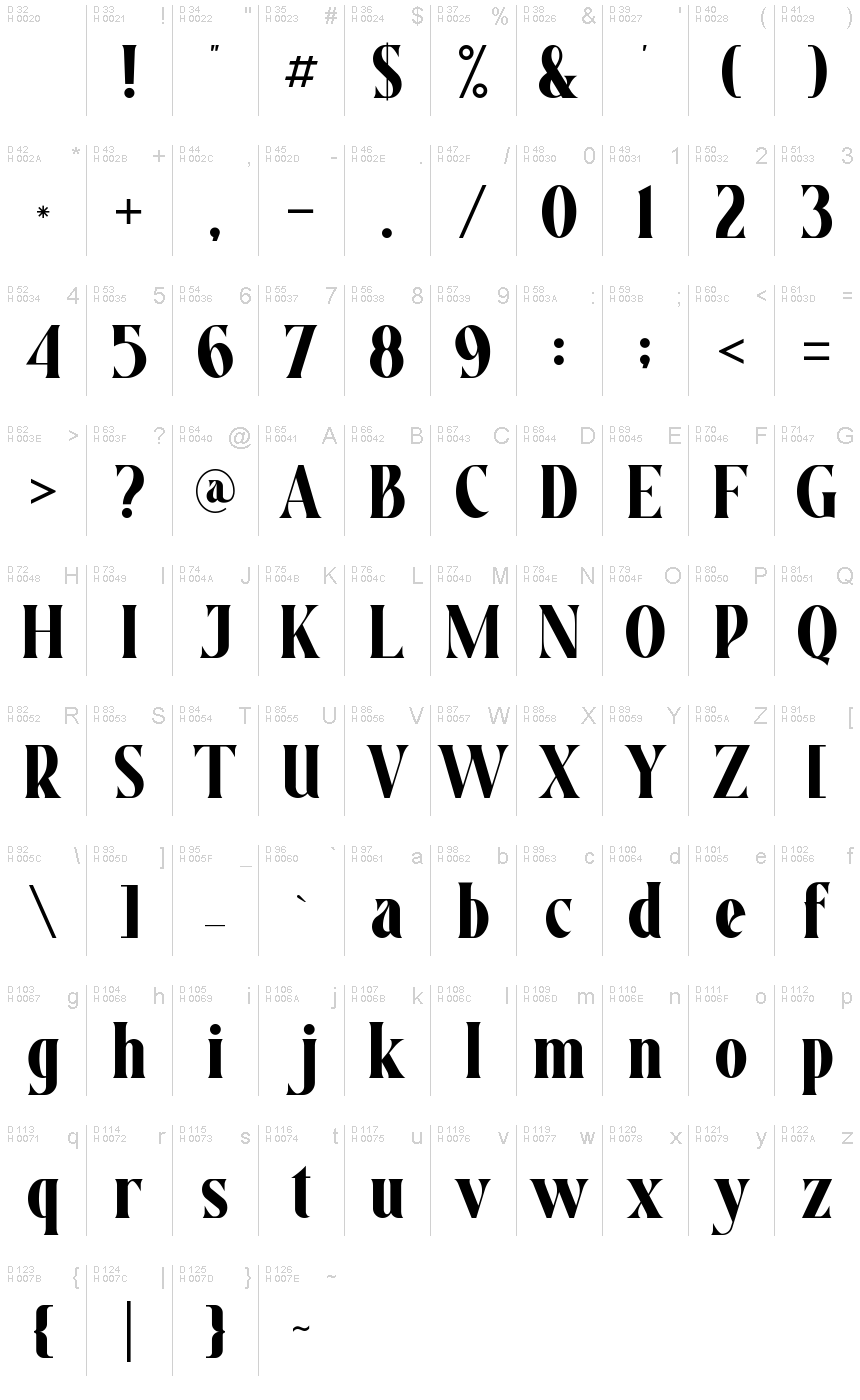
Aesthico (Demo)
Aesthico emerges as a bold statement in the realm of typography, crafted by the discerning hands at Heinzel Std. This serif font exudes confidence with its robust strokes and embraces a sense of tradition while its condensed form allows for impactful legibility in space-conscious applications. The Aesthico typeface commands attention, making it an ideal choice for headlines, branding, and advertising where its assertive presence can shine.
Its aesthetic is both classic and efficient, offering designers a versatile tool for creating elegant, yet powerful visual hierarchies.